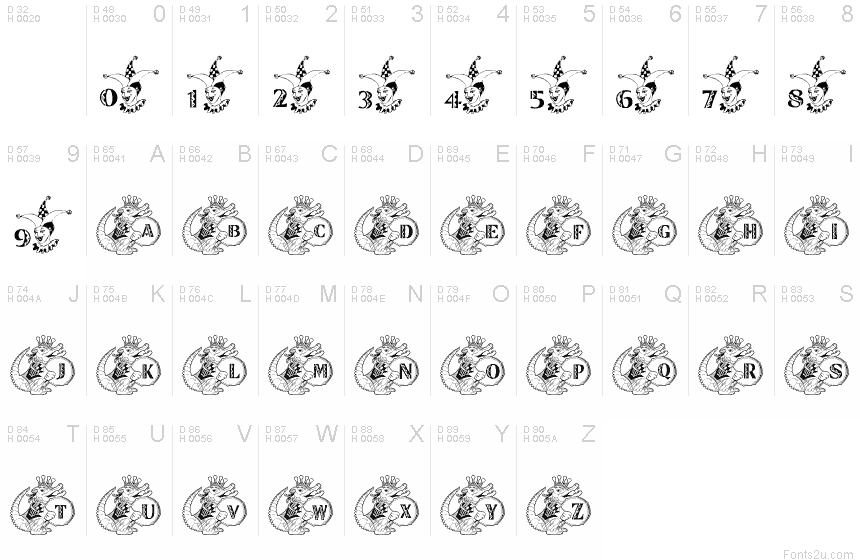
Croc Krewe is a free heraldic initial dingbat font built around a crowned crocodile mascot. Each character frames a large letter on a round shield, with the reptile posed beside it in elaborate royal dress. Fine linework fills the crown, braided tail, clothing, and scales, giving the drawings the look of old storybook emblems.
Fantasy and fairy-tale projects are the clearest match, especially game graphics, event posters, and themed merchandise that can use each figure as a ready-made badge. The royal mascot could also suit children's publishing and novelty packaging, where the lettered shield becomes part of the illustration.